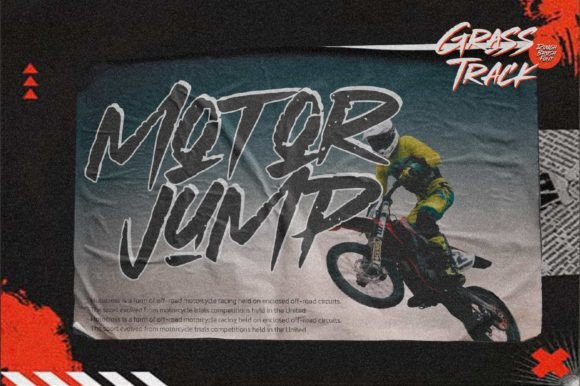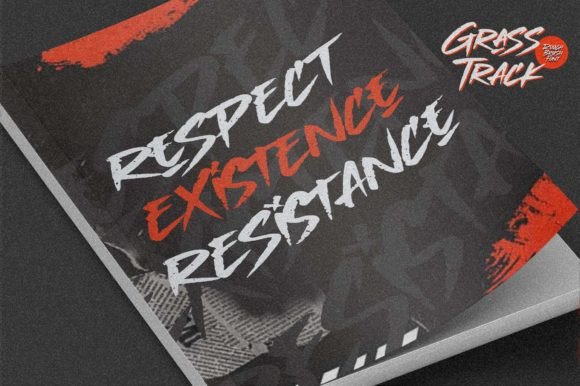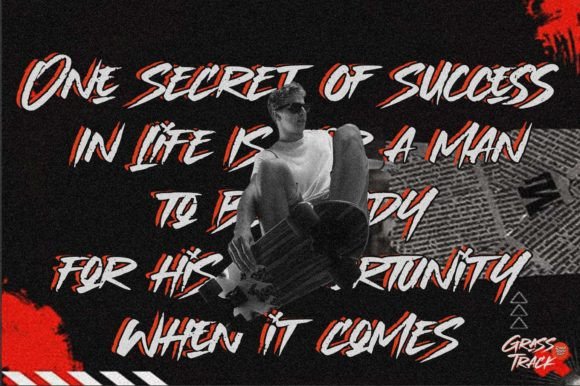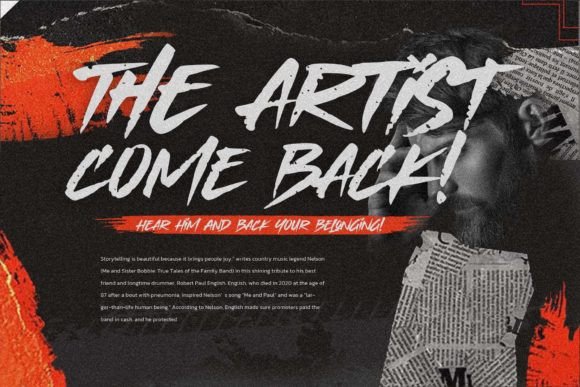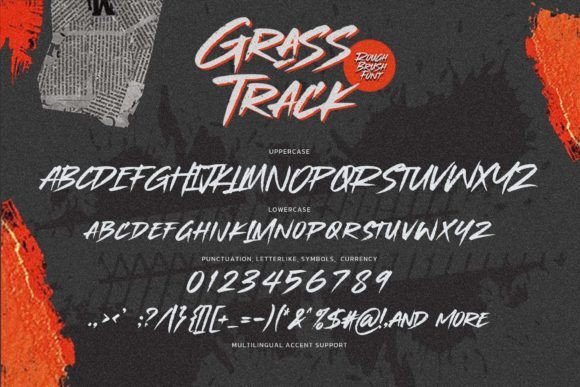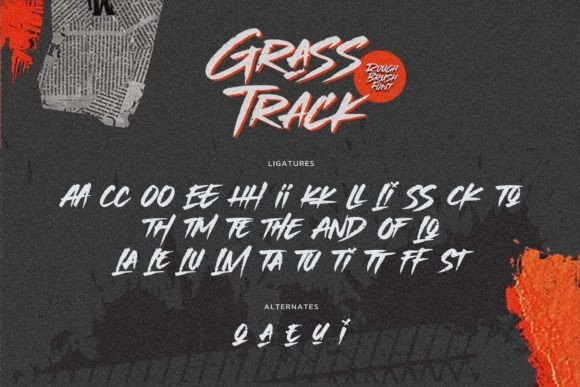
Grasstrack Font: Elevate Your Designs with a Naturally Textured Style
In the world of typography, fonts play a crucial role in conveying the tone and personality of a design. For creative projects that demand a unique and modern touch, the Grasstrack font is an excellent choice. This brush display font boasts a naturally textured style and dramatic movement, making it perfect for a wide range of applications.
What is Grasstrack Font?
Grasstrack is a brush display font designed to add a touch of elegance and sophistication to your designs. Its naturally textured style gives it an organic feel, as if the words were written with a brush. The font’s dramatic movement adds a sense of dynamism, making it perfect for designs that require a bit of flair.
Key Features of Grasstrack Font
- Naturally Textured Style: The Grasstrack font features a unique, textured style that gives it a hand-crafted feel.
- Dramatic Movement: The font’s dramatic movement adds a sense of energy and dynamism to your designs.
- Modern Typography: Grasstrack is perfect for designs that require modern typography, making it ideal for logos, branding, and advertising.
- Versatile: This font can be used for a wide range of applications, including logos, printed quotes, invitations, cards, product packaging, headers, stationery, and more.
Use Cases for Grasstrack Font
The Grasstrack font is incredibly versatile and can be used for various design projects. Here are some use cases:
- Logos and Branding: Use Grasstrack to create a unique and memorable logo for your brand.
- Printed Quotes and Posters: Add a touch of elegance to your printed quotes and posters with the Grasstrack font.
- Invitations and Cards: Make your invitations and cards stand out with the Grasstrack font’s naturally textured style.
- Product Packaging: Use Grasstrack to add a modern touch to your product packaging and make it more appealing to customers.
- Headers and Stationery: Elevate your headers and stationery with the Grasstrack font’s dramatic movement and textured style.
Why Choose Grasstrack Font?
With so many fonts available, why choose Grasstrack? Here are a few reasons:
- Unique Style: The Grasstrack font offers a unique, naturally textured style that sets it apart from other fonts.
- High-Quality Design: The font is designed with high-quality craftsmanship, ensuring that it looks great in any design.
- Easy to Read: Despite its textured style, the Grasstrack font is easy to read, making it perfect for designs that require a clear message.
Tips for Using Grasstrack Font
To get the most out of the Grasstrack font, here are some tips:
- Use it Sparingly: Use the Grasstrack font sparingly to make a bigger impact. Use it for headings or titles, and a simpler font for body text.
- Experiment with Colors: The Grasstrack font looks great in a variety of colors. Experiment with different colors to find the one that works best for your design.
- Pair it with Other Fonts: Pair the Grasstrack font with other fonts to create a unique and interesting design.
The Grasstrack font is a versatile and modern font that can elevate your designs to the next level. Its naturally textured style and dramatic movement make it perfect for a wide range of applications, from logos and branding to printed quotes and product packaging. With its high-quality design and easy readability, the Grasstrack font is an excellent choice for designers and crafters looking to add a touch of elegance and sophistication to their designs.